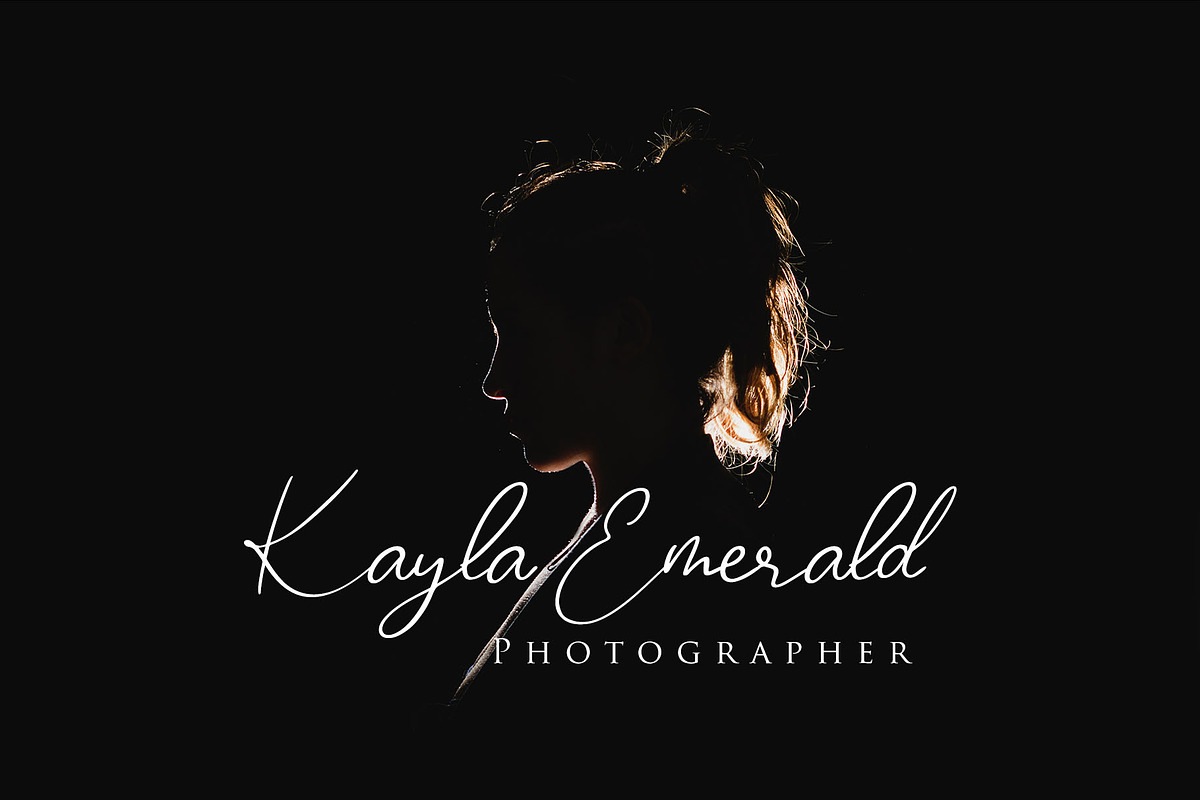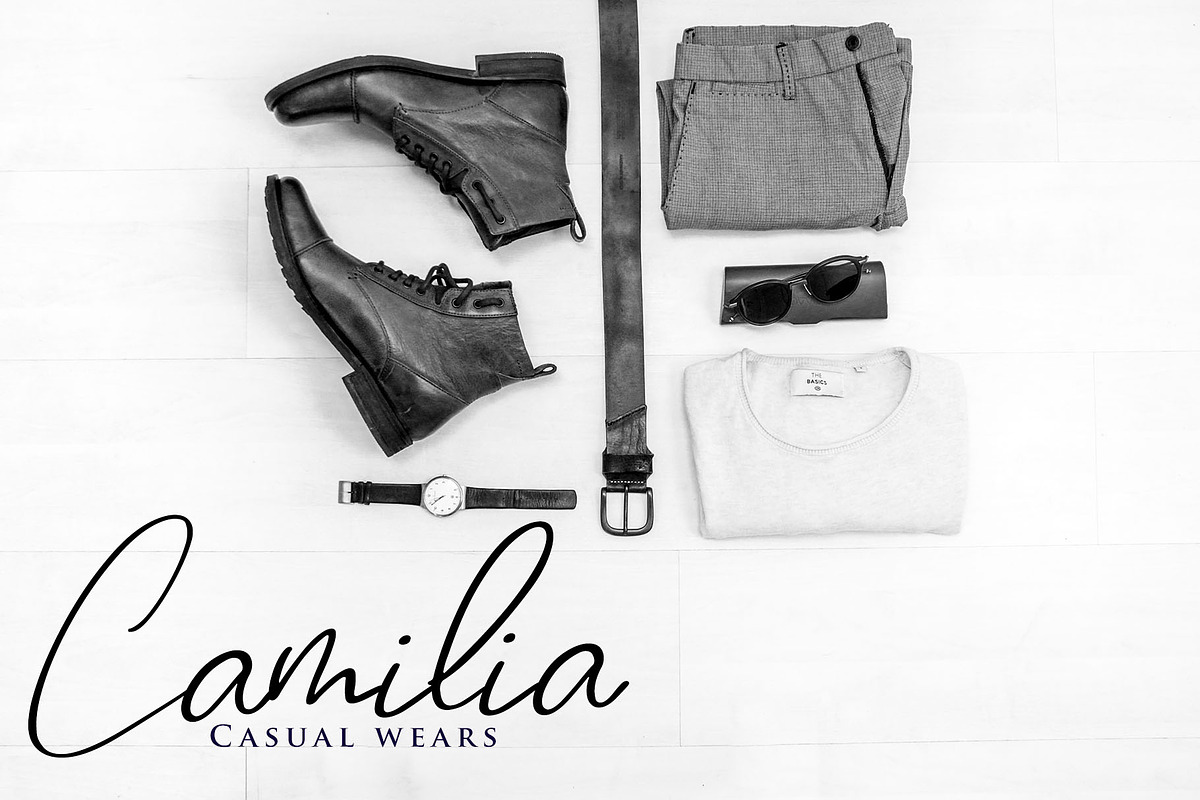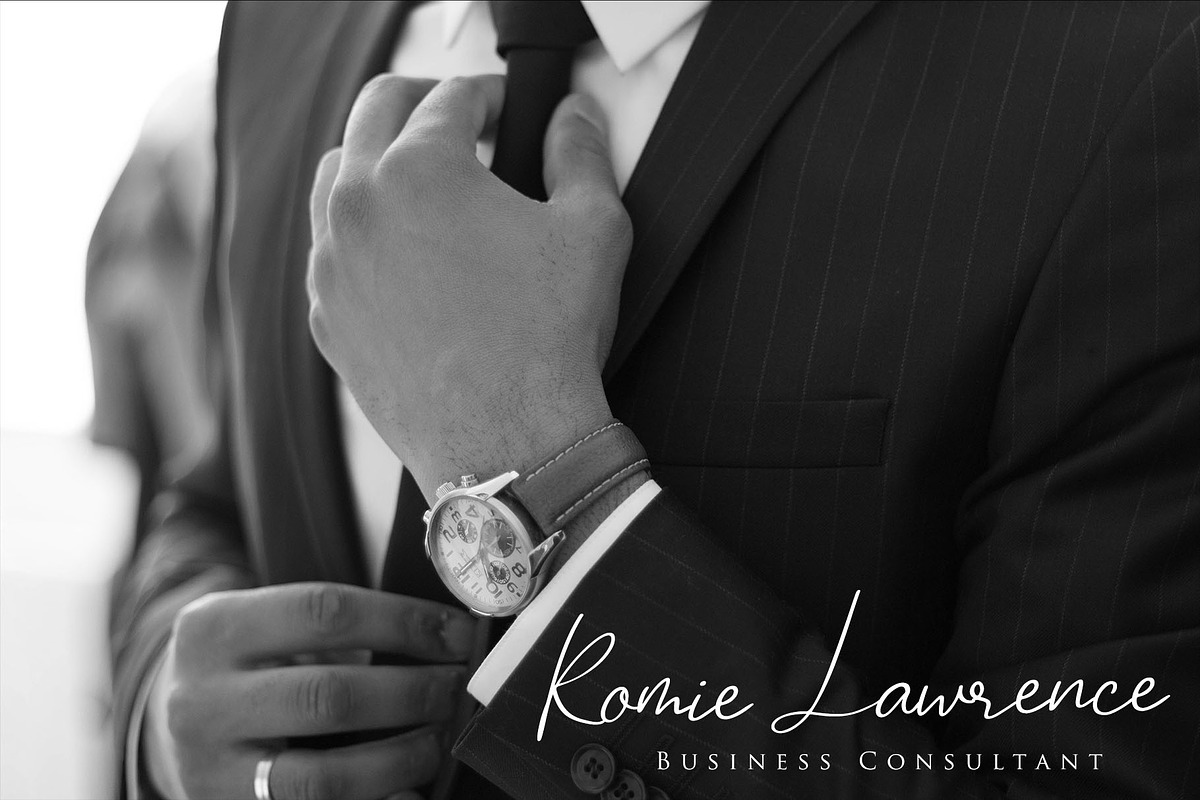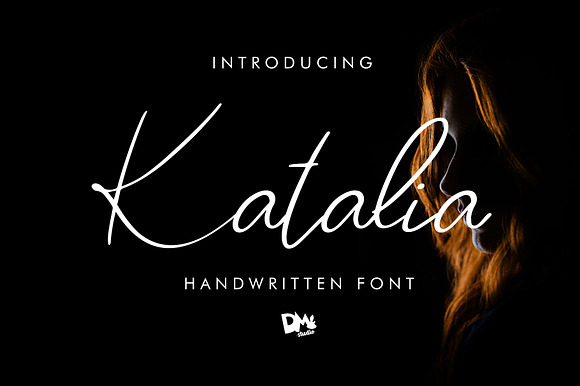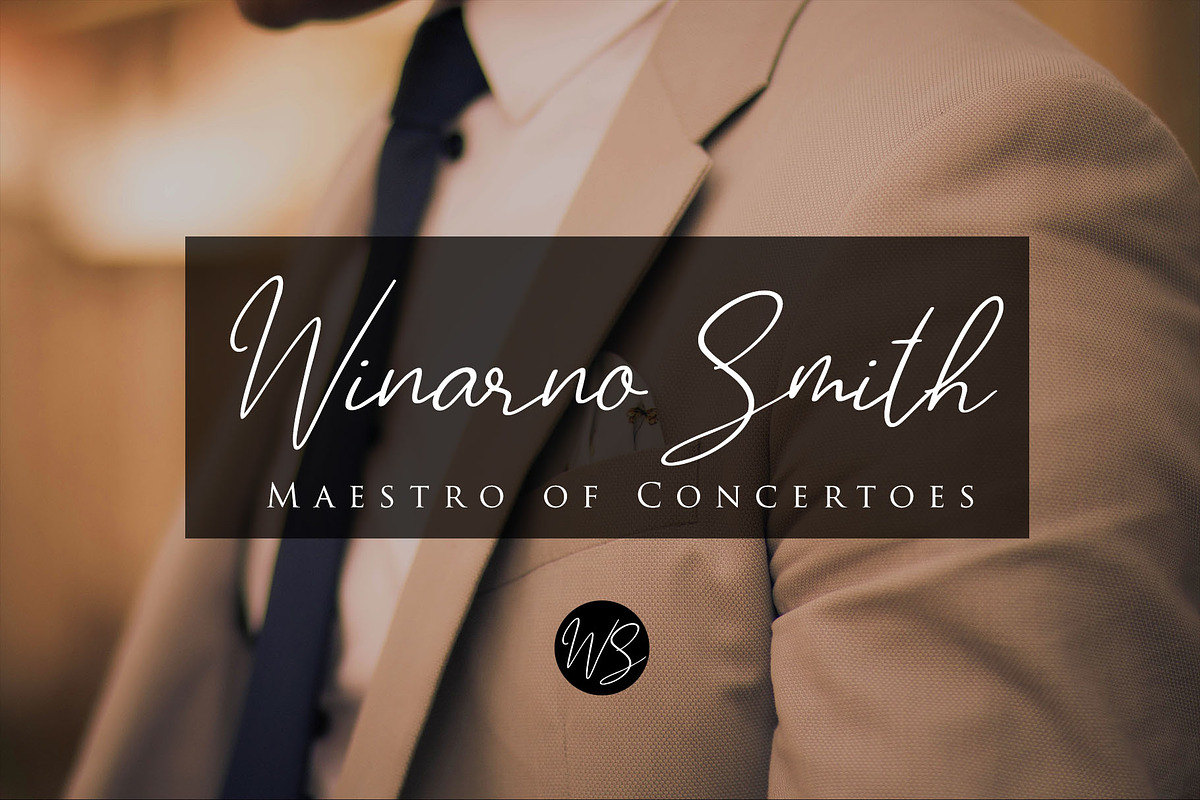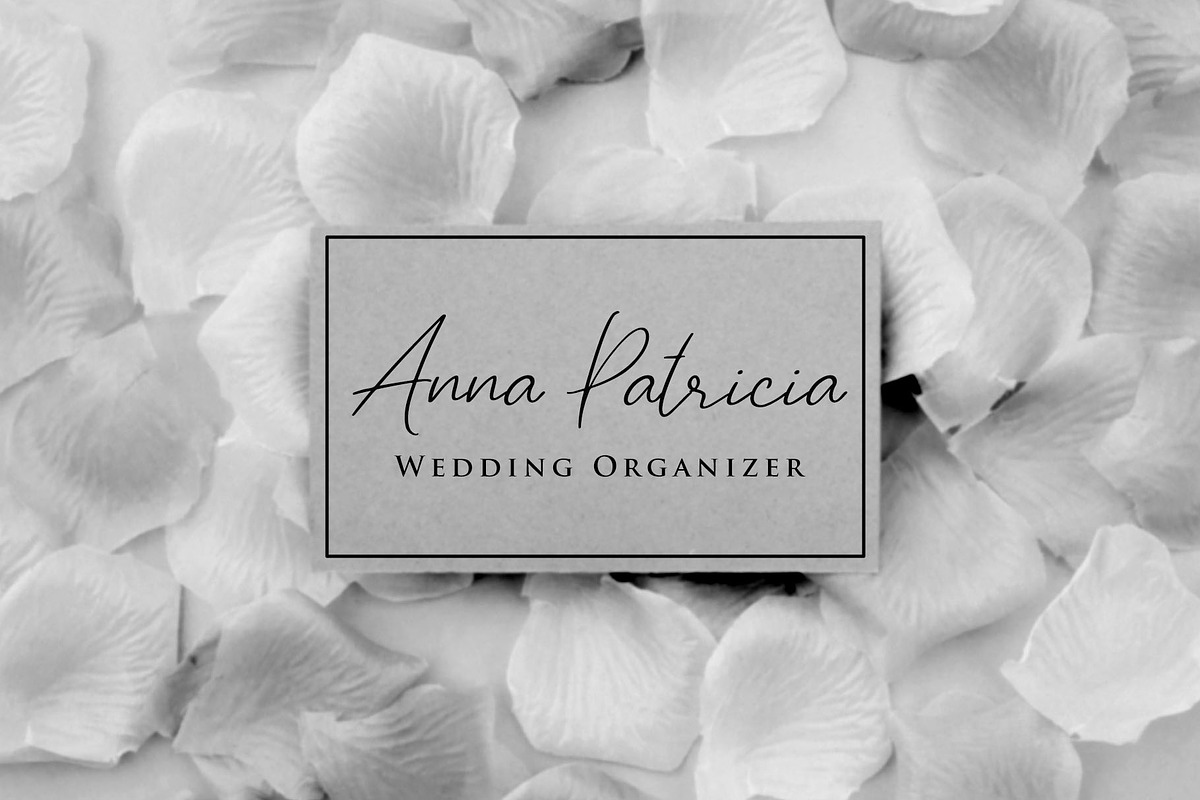
Katalia - Handwritten Font
Introducing, Katalia Handwritten Font. It's elegant, versatile and classy handwritten font, great choice for your exclusive design, template, branding, signature, logo, apparels labels, name card, invitations, advertisements, magazine, etc.
Including Uppercase, lowercase, numeral and symbols
Katalia - Handwritten Font by Dm Studio fits naturally into Branding, posters, packaging, typography.